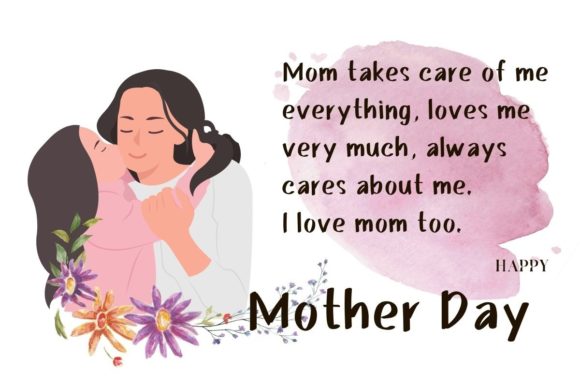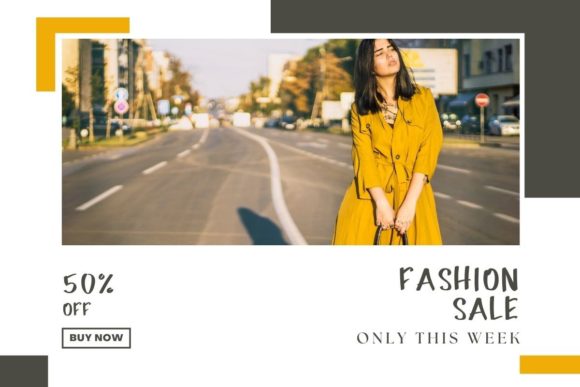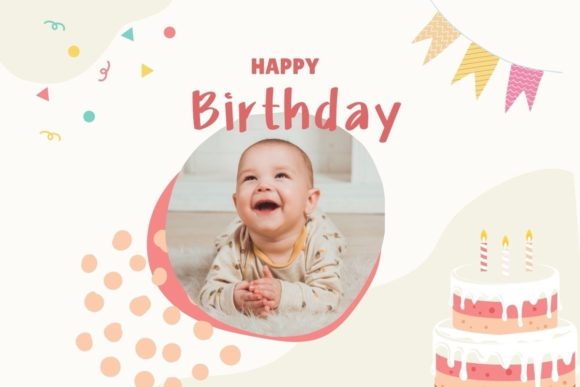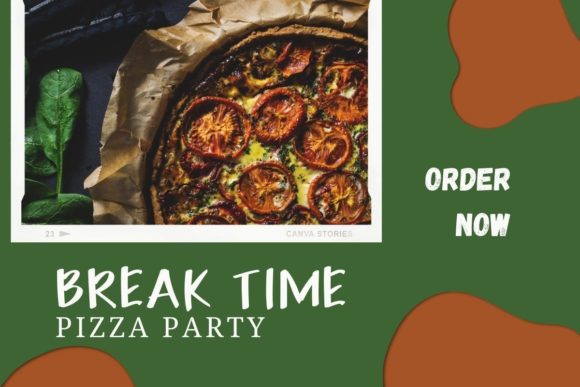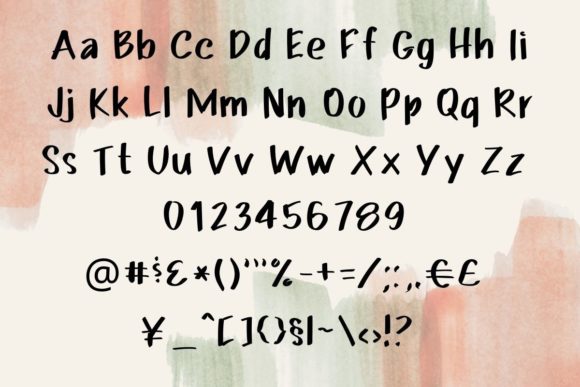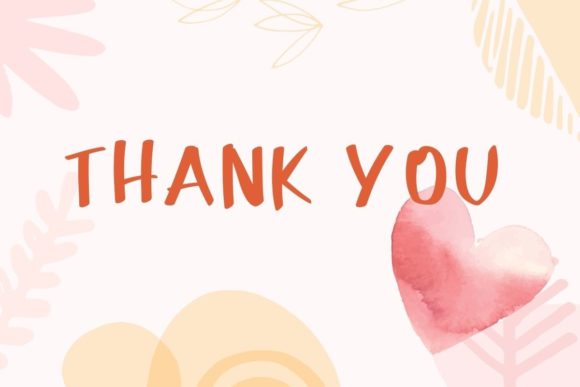
The Perfect Blend of Style and Character
As a designer, there’s nothing quite like the rush of finding the perfect font to elevate your project. It’s like stumbling upon a secret ingredient that brings all the elements together – a pinch of flair, a dash of personality, and a whole lot of style. For me, that moment came when I discovered the Garlic Font.
Crafted to give your headlines and logotype projects a stylish touch, the Garlic Font is a gorgeous and bold handwritten font that reads as strong, confident, and dynamic. With its nostalgic character, it’s the perfect addition to any design, adding a touch of whimsy and charm that’s hard to resist.
Whether you’re a seasoned designer or just starting out, the Garlic Font is a valuable tool in your arsenal. Its versatility and unique charm make it a go-to choice for designers looking to add a little extra something to their projects.
Garlic Font Key Features
- Font Family: Garlic Font is a unique, hand-drawn font family that includes 4 different styles (Regular, Bold, Italic, and Bold Italic).
- Size: Each character in the font is carefully crafted to be highly legible at various font sizes, making it suitable for a wide range of applications.
- Resolution: Designed to be scalable and crisp at resolutions up to 300 DPI, ensuring high-quality output in both digital and print media.
- Unique Characteristics: Garlic Font features a distinctive, hand-drawn aesthetic with subtle texture and imperfections, giving it a warm and inviting feel.
- Character Set: Includes a comprehensive character set, including Latin, Cyrillic, and Greek alphabets, as well as a range of punctuation and symbol glyphs.
Garlic Font Review
As a designer, I was excited to dive into the Garlic Font and see what it had to offer. Here’s my honest take.
- Unique Character: Garlic Font has a distinctive, hand-drawn feel that sets it apart from more traditional fonts.
- Expressive Emotions: The font’s irregularities give it a lot of character, making it perfect for conveying emotions and adding personality to your design.
- Readability: Despite its unconventional look, Garlic Font is surprisingly readable, even at smaller sizes.
- Limited Legibility: While Garlic Font is readable, it’s not perfect for large blocks of text or body copy. It’s best used for headings and shorter phrases.
- Context-Dependent: The font’s quirks can be distracting in certain contexts, like in small print or on low-resolution displays.
Garlic Font is a bold, attention-grabbing choice that’s perfect for adding a touch of personality to your design. While it may not be the most practical choice for every project, it’s definitely worth considering when you need a font that stands out.
For best results, use Garlic Font in combination with bold or italic text to create visual contrast. Garlic Font is ideal for use in titles, headings, and other display text. It’s also commonly used in food and cooking-related designs, such as recipe cards or restaurant menus.